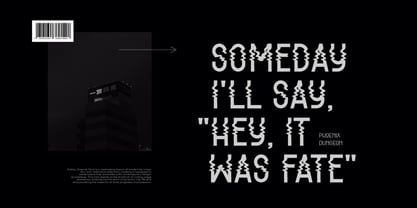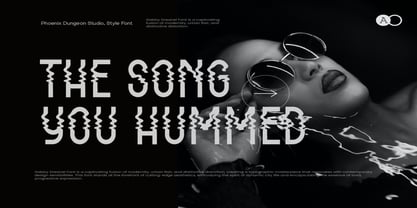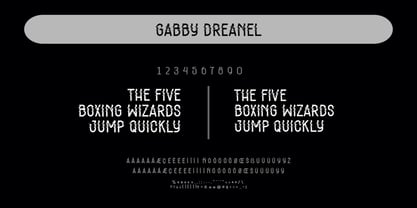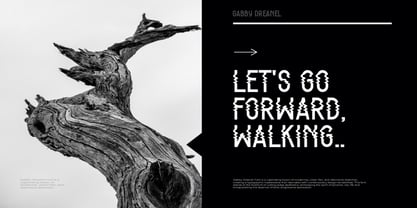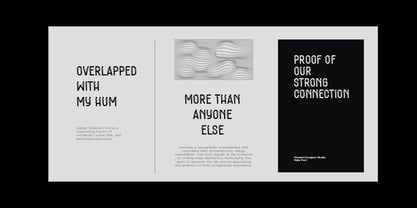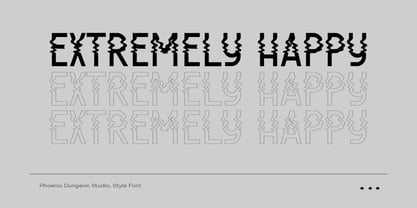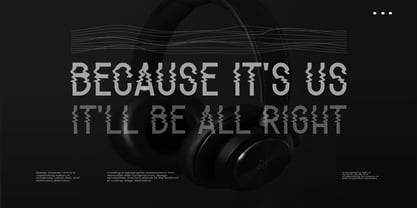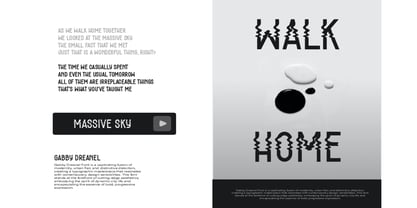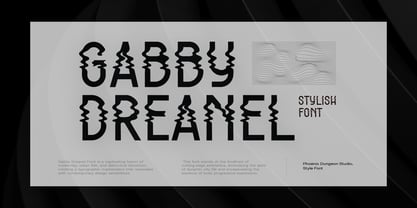
Gabby Dreanel
by Phoenix Group
The Gabby Dreanel Font Family was designed by Alif Naufal Muzakki and published by Phoenix Group. Gabby Dreanel contains 1 styles. More about this family
Gabby Dreanel Font is a captivating fusion of modernity, urban flair, and distinctive distortion, creating a typographic masterpiece that resonates with contemporary design sensibilities. This font stands at the forefront of cutting-edge aesthetics, embodying the spirit of dynamic city life and encapsulating the essence of bold, progressive expression.
Designers: Alif Naufal Muzakki
Foundry: Phoenix Group